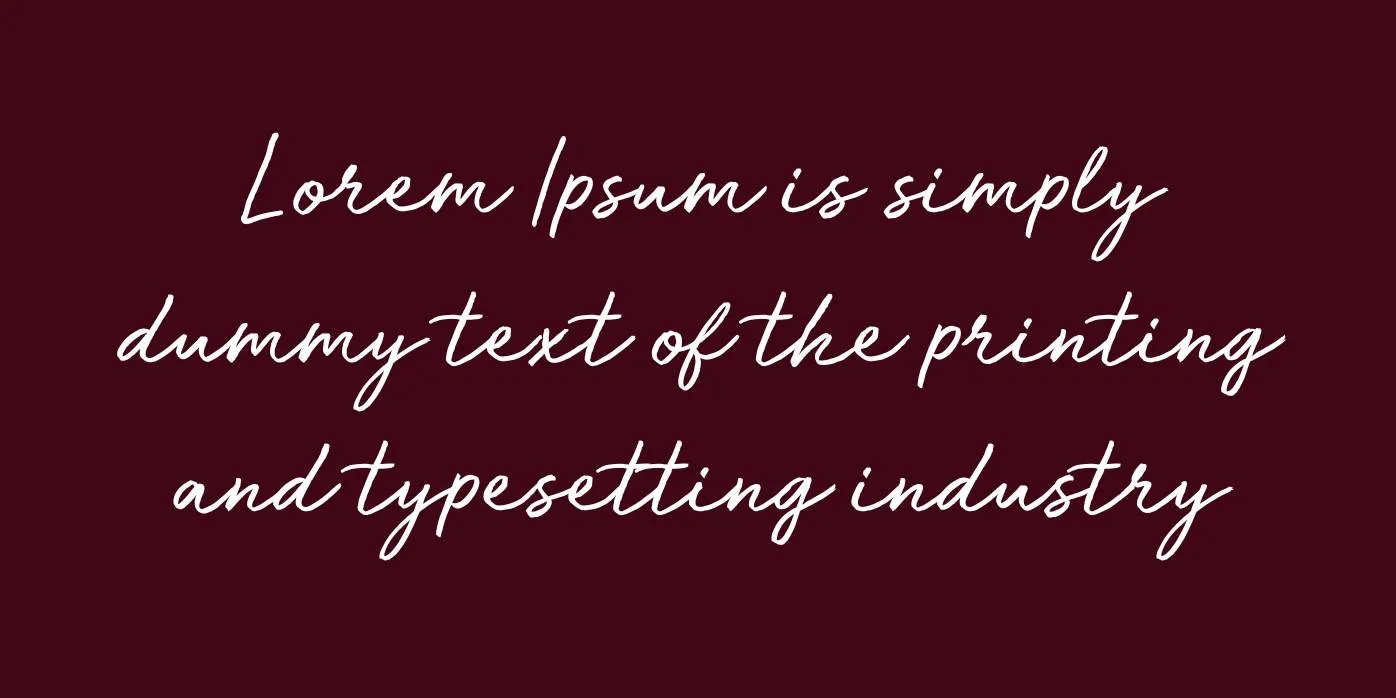
Run Wild Font
Run Wild Font is a handwritten typeface. This font character contains capital letters, numbers, special letters, punctuation, lowercase letters, and many symbols. There is an online font generator tool, where you can easily generate any type of font. You can also find several different typefaces to be paired with this font.
But I suggest you combine it with pilsen extra font. This typeface has extra benefits in this pair that I suggest to you. The texture has thin, stylish, and attractive characters that will give beauty to your project and design.